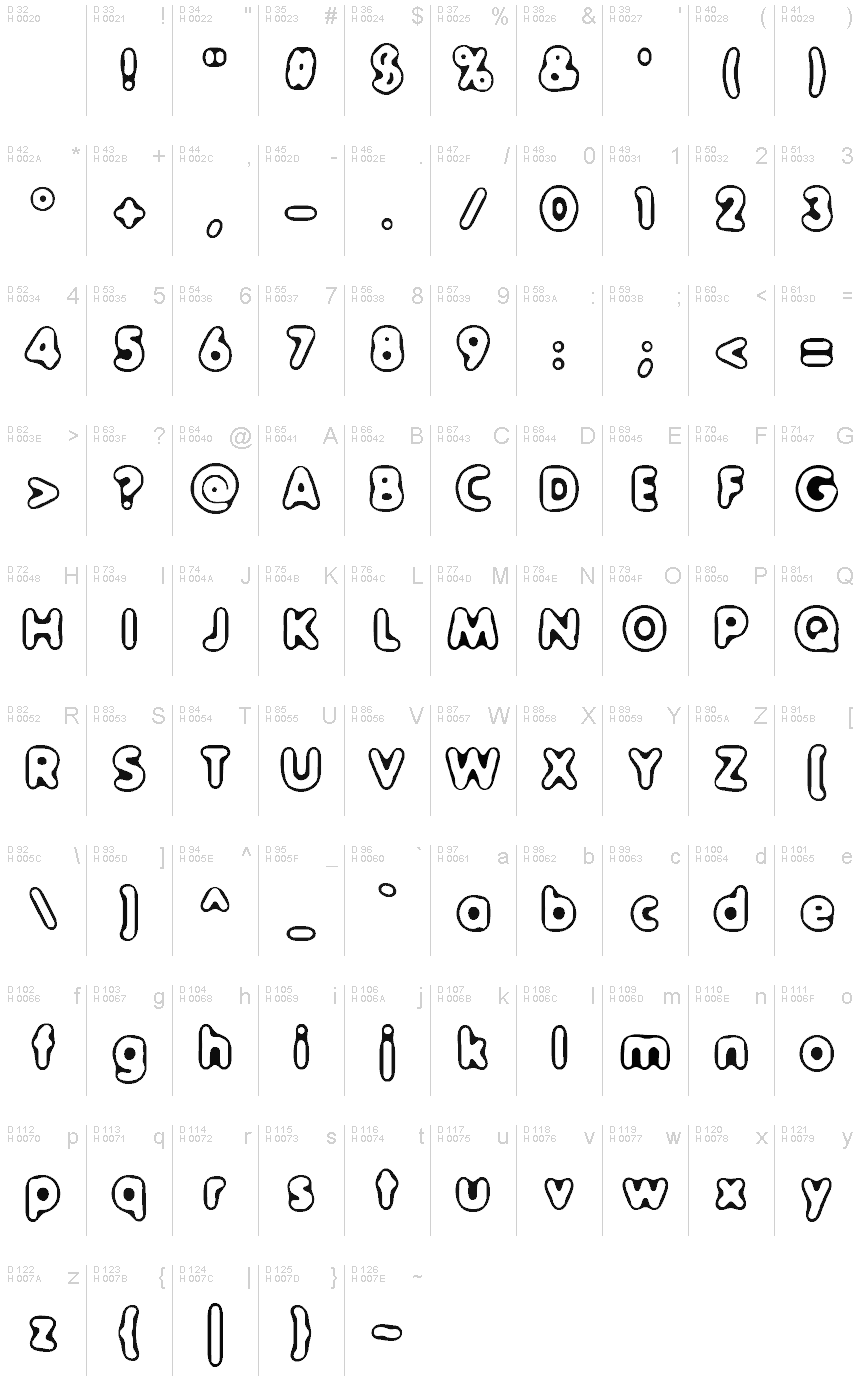
Outer Sider BRK
Outer Sider BRK is a bold, outlined display font that exudes a captivating, enigmatic presence. Designed by Ænigma, this font's distinct character is defined by its dynamic letterforms, which strike a delicate balance between sharp edges and fluid curves. The bold weight lends an authoritative tone, making it well-suited for headlines, logos, and attention-grabbing design elements. Its striking outline effect adds depth and visual interest, allowing Outer Sider BRK to stand out in a variety of contexts, from editorial layouts to packaging designs.
This font's versatility and striking aesthetic make it a compelling choice for designers seeking to create impactful, memorable visual experiences.